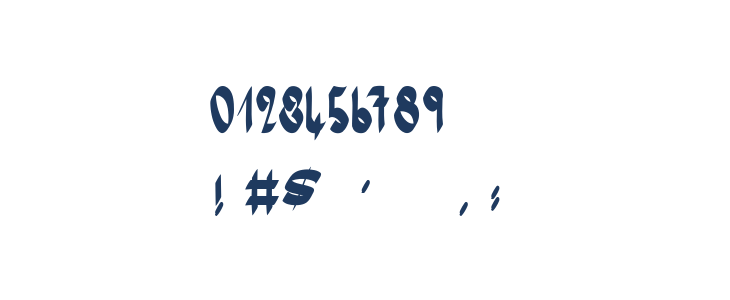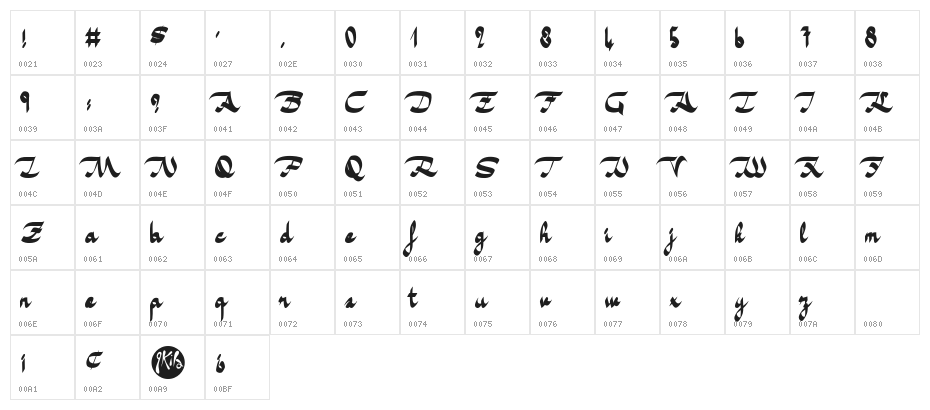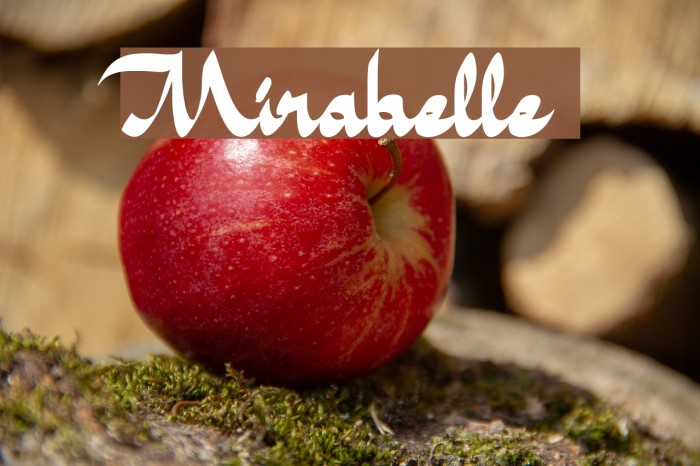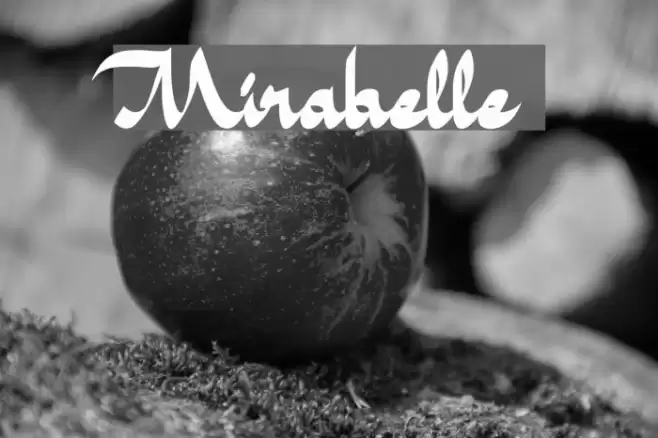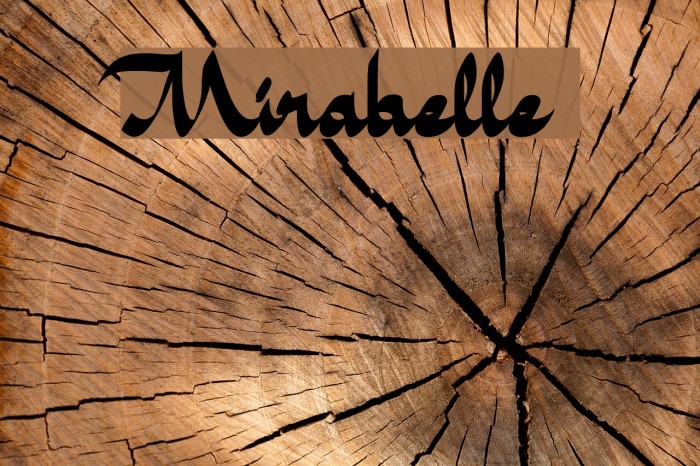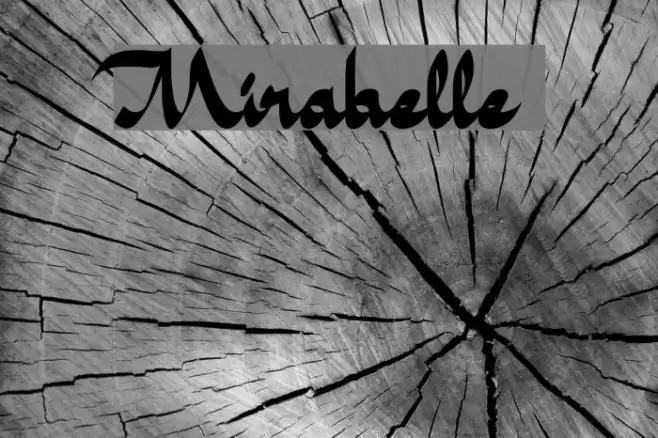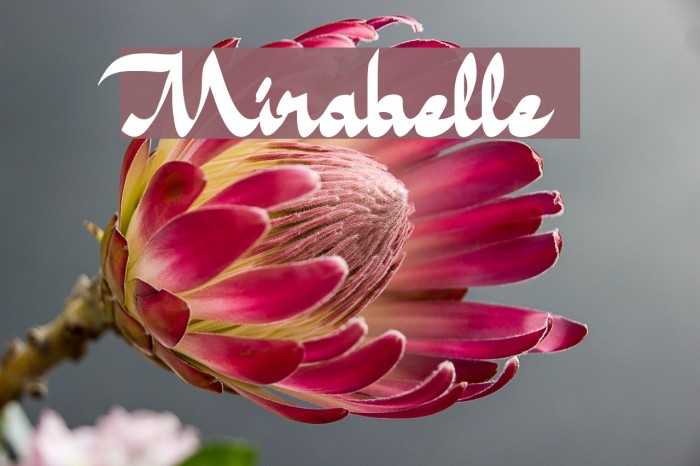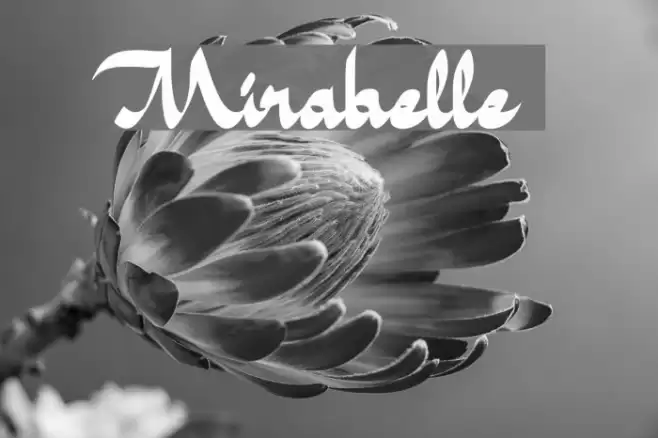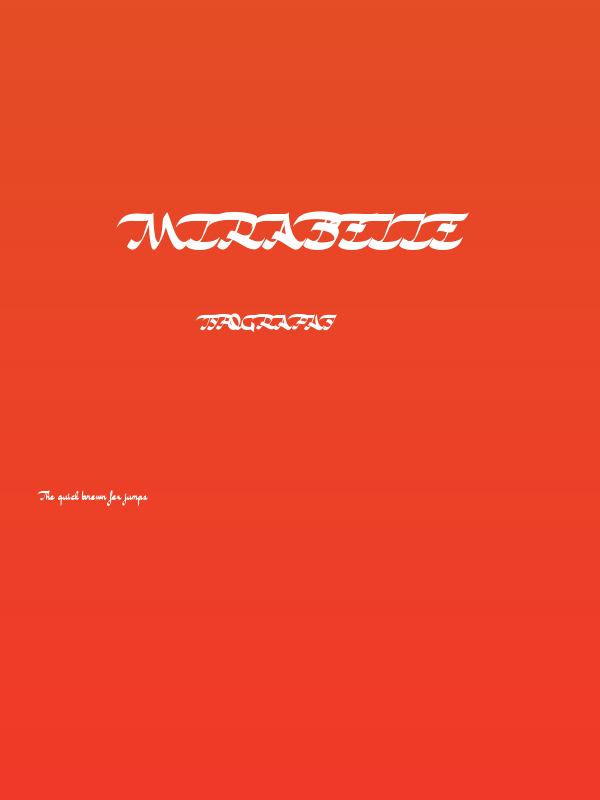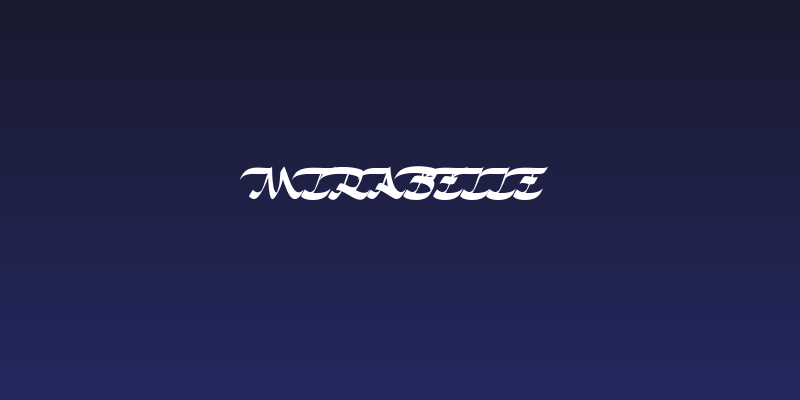
Mirabelle Font
Mirabelle Description
This font features a bold and dynamic script style with a strong calligraphic influence. The letters are interconnected with fluid strokes, creating a sense of movement and elegance. The uppercase letters are particularly striking, with exaggerated curves and flourishes that give them a dramatic appearance. The lowercase letters maintain the same fluidity, offering a cohesive look throughout. The numbers and special characters are designed to match the overall style, ensuring consistency. This font's unique design makes it stand out, perfect for projects that require a touch of sophistication and flair.